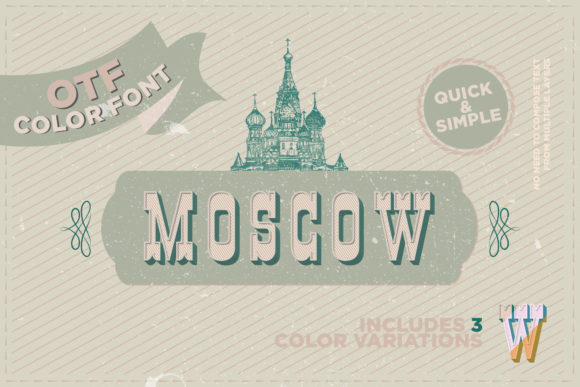
Prepare yourself to be mesmerized by Moscow Font, a chromatic masterpiece crafted by the visionary mrramon. This captivating color font, a true gem in the realm of web advertising, promises to transform your designs into captivating spectacles. Whether you're an experienced designer or a novice seeking to make a statement, Moscow Font has the power to elevate your creations to new heights of brilliance.
Embark on a typographic journey where colors dance harmoniously with shapes, creating an enchanting visual symphony. Moscow Font's vibrant palette and playful spirit make it the perfect choice for projects that demand attention and exude a sense of vibrancy. Unleash your creativity and explore the boundless possibilities that await you with this extraordinary font.
With Moscow Font at your disposal, you'll unlock a world of design opportunities. Craft eye-catching logos that leap off the screen, design posters that captivate audiences, and create social media graphics that spark conversations. Its versatility extends to branding, packaging, and even web design, making it the ultimate tool for businesses seeking to leave a lasting impression.
Join the ranks of design enthusiasts who have discovered the magic of Moscow Font and transformed their creative visions into tangible masterpieces. Let your imagination soar as you experiment with its diverse range of applications. Whether you're a seasoned professional or just starting out, this font is your passport to a world of typographic excellence.
Step into the spotlight with Moscow Font, the font that commands attention and ignites imaginations. Embrace the power of color and let your creativity shine through. As you navigate the vast digital landscape, this font will be your steadfast companion, empowering you to create designs that resonate with audiences and leave an indelible mark on the world.